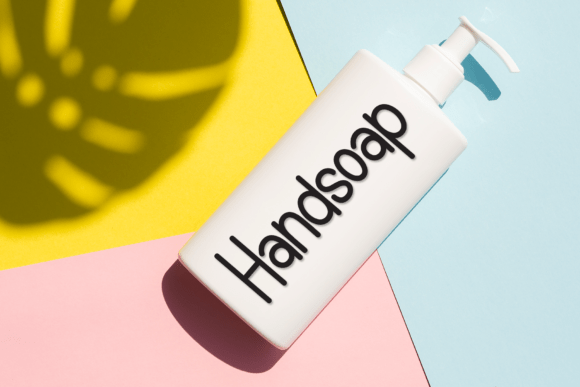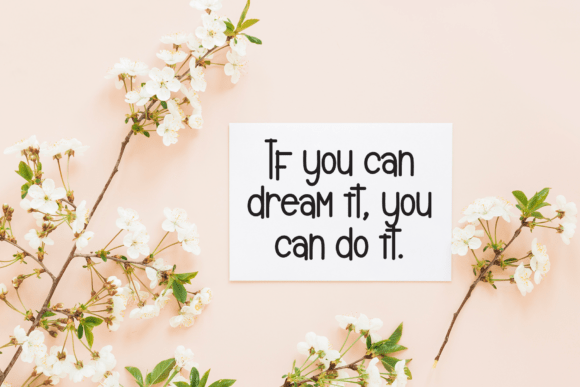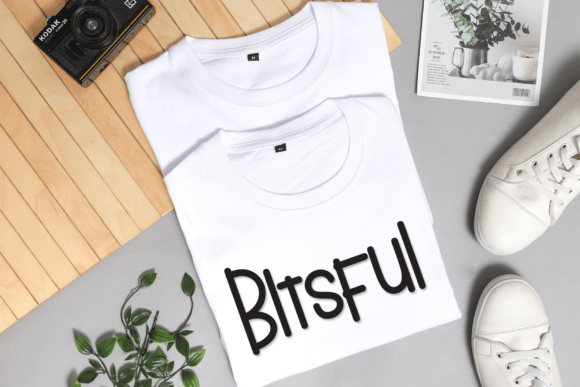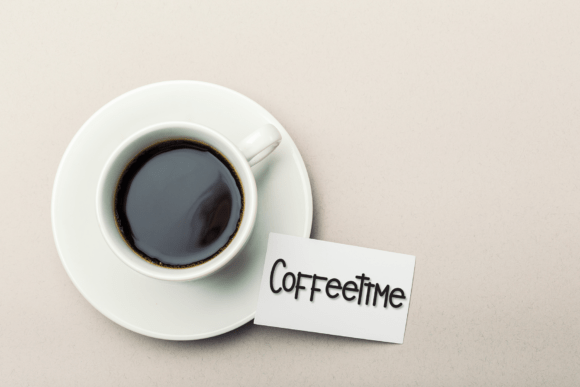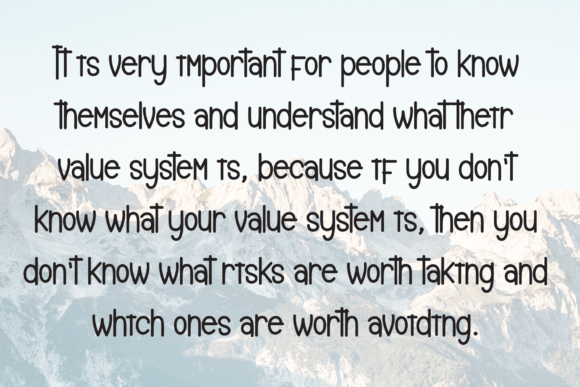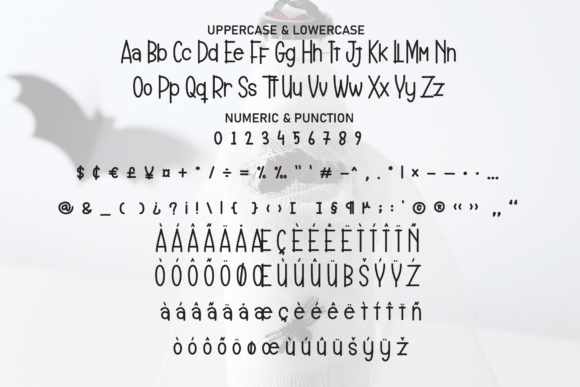
Discover the Delightful Ghost Tumbler Font: Elevate Your Designs with a Touch of Whimsy
Are you on the hunt for a font that injects a dose of playfulness and charm into your creative projects? Look no further than the Ghost Tumbler Font, a captivating handwritten display font that is sure to enchant your audience. With its gentle and inviting feel, this font is perfect for designers and crafters seeking to add a sprinkle of merriment to their work.
A Font that Exudes Whimsy and Charm
The Ghost Tumbler Font is a beautifully crafted handwritten display font that boasts an adorable and playful aesthetic. Its unique character set is designed to evoke a sense of joy and friendliness, making it an ideal choice for a variety of design applications. Whether you’re working on wedding invitations, greeting cards, or any other project that requires a touch of whimsy, this font is sure to deliver.
Wedding invitations and greeting cards are special occasions that call for a font that is both elegant and playful. The Ghost Tumbler Font fits the bill perfectly, adding a delightful touch to your designs that is sure to impress. Its charming and affable nature makes it an excellent choice for:
- Wedding invitations and save-the-date cards
- Greeting cards for birthdays, anniversaries, and holidays
- Party invitations and event flyers
Why Choose the Ghost Tumbler Font?
So, what sets the Ghost Tumbler Font apart from other fonts? Here are just a few reasons why designers and crafters love this charming font:
- Unique and Playful Aesthetic: The Ghost Tumbler Font boasts a one-of-a-kind design that is sure to capture the attention of your audience.
- Easy to Read: Despite its playful nature, this font is surprisingly easy to read, making it perfect for both digital and print applications.
- Versatile: The Ghost Tumbler Font can be used for a wide range of design projects, from wedding invitations to social media graphics.
- High-Quality Design: This font is carefully crafted to ensure that it looks great in any size or format.
- Use it for Headings and Titles: The Ghost Tumbler Font is perfect for headings and titles, adding a touch of personality to your design.
In conclusion, the Ghost Tumbler Font is a charming and affable handwritten display font that is sure to bring a touch of joy to your designs. With its playful and whimsical aesthetic, this font is perfect for designers and crafters seeking to add a sprinkle of merriment to their work. Whether you’re working on wedding invitations, greeting cards, or any other design project, this font is sure to deliver. So why not give it a try and see the difference it can make in your designs?